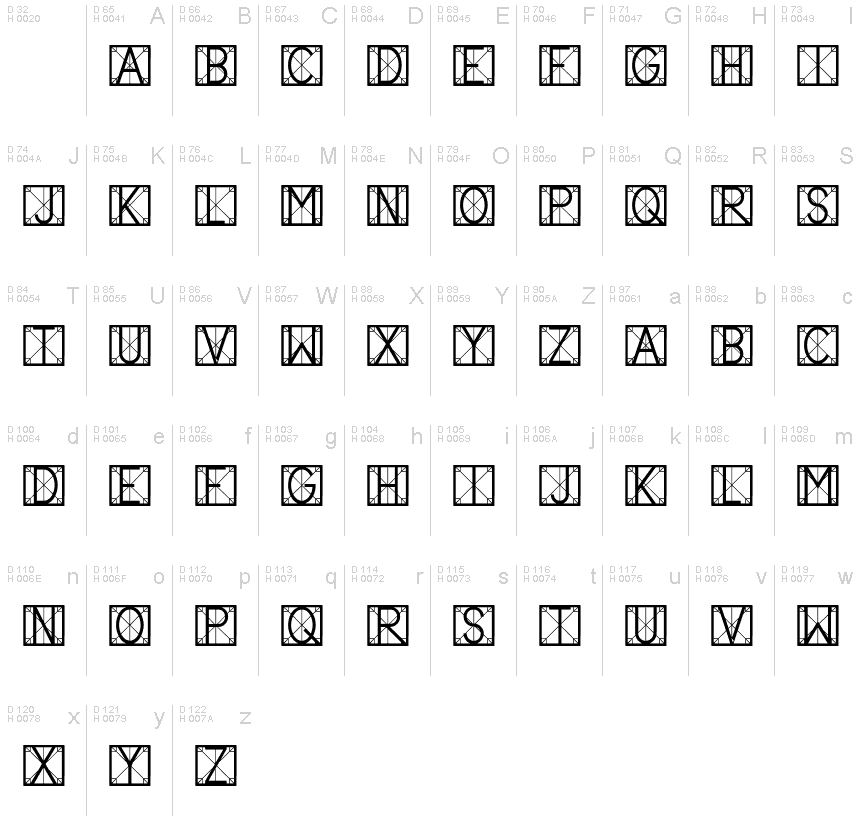
Processor Regular
Looking for a font that will make your designs pop? Look no further than Processor, the latest display font from designer Vladimir Nikolic. With its semi-light weight and decorative techno style, Processor is perfect for a wide range of projects, from futuristic websites to sleek corporate branding. Whether you're designing a cutting-edge tech product or a high-energy event poster, Processor's bold letterforms and unique flourishes are sure to catch the eye. So why wait? Try the Processor font today and see how it can take your designs to the next level!
Processor